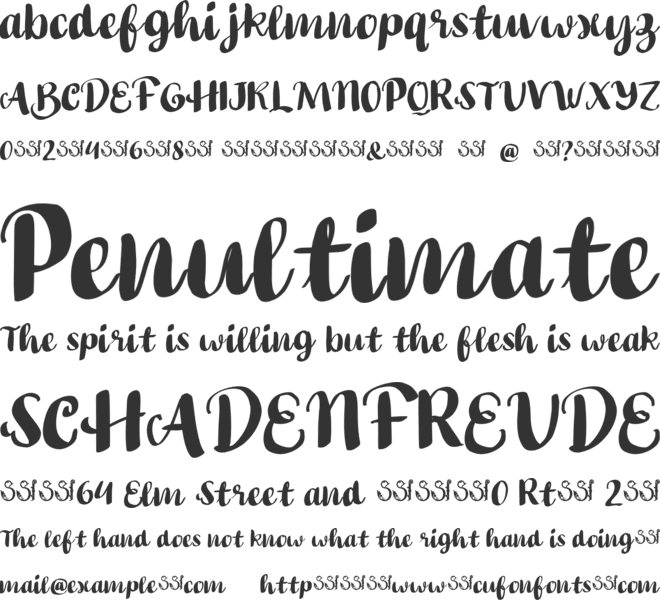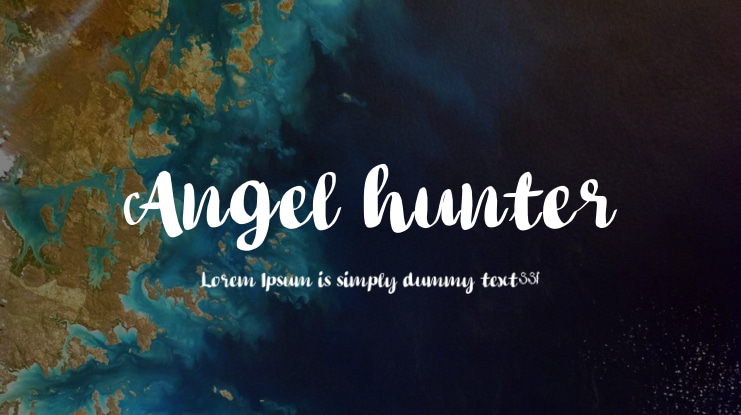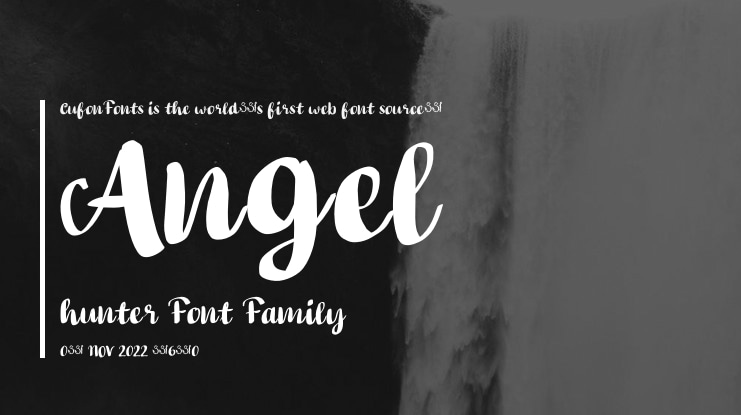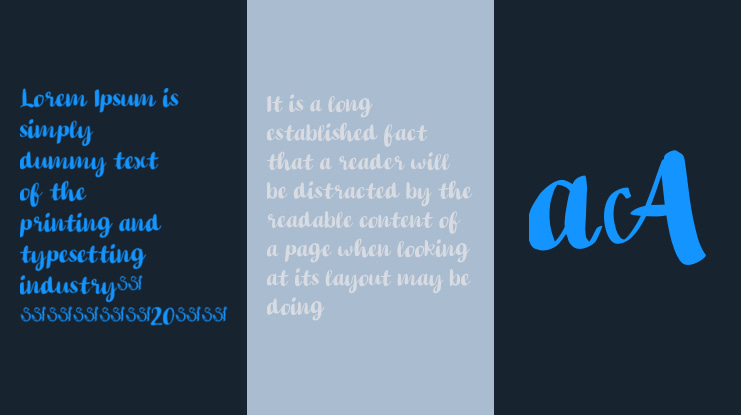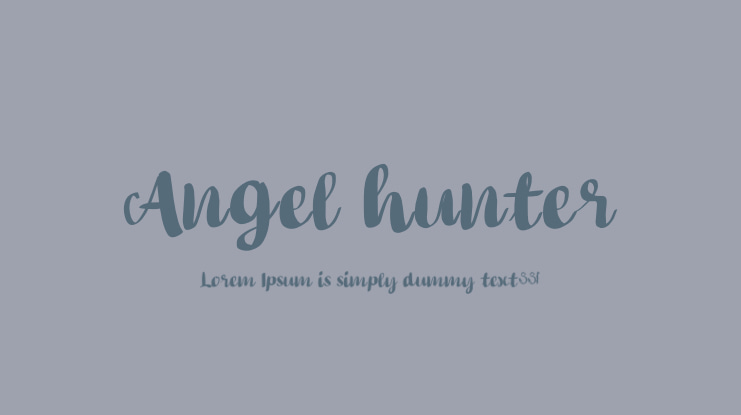
Angel hunter Font
The Angel Hunter script font is not only fun and lovely, but it also features a unique symbol in each glyph. It is the perfect choice for all your logo design, branding, social media posts, and more. Check it out here: https://www.scrapstype.com/product/angel-hunter/